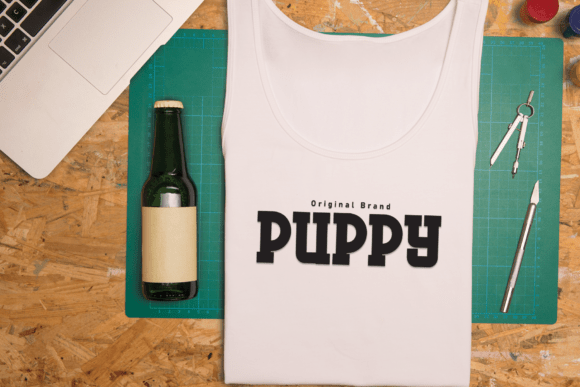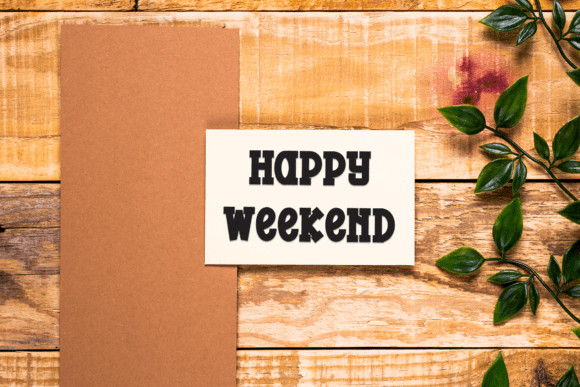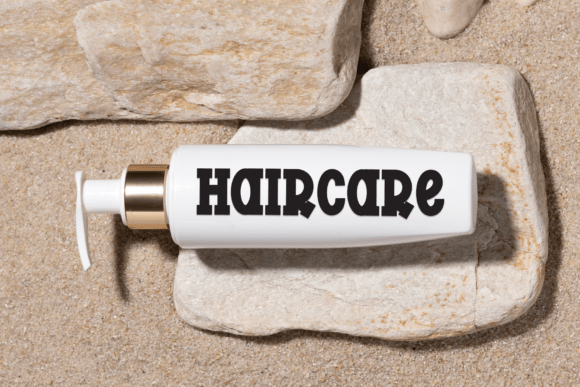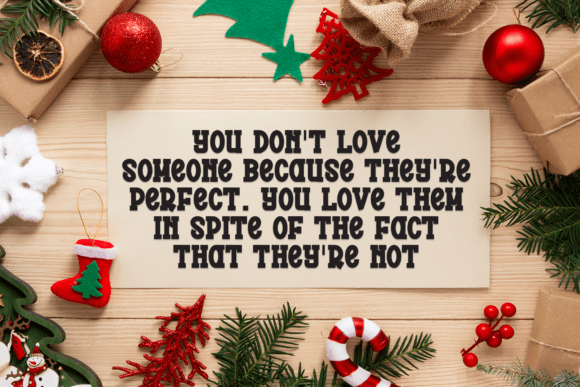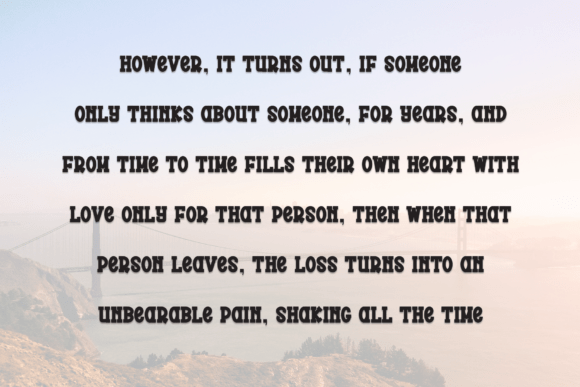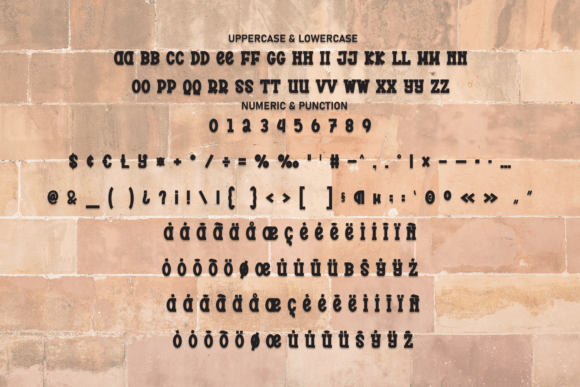
Introducing Block Vintage Font: A Modern Handwritten Display Font with a Raw, Hand-Sculpted Personality
In the world of typography, fonts play a crucial role in conveying the tone and personality of a brand or design. For designers and crafters looking for a unique and impactful font to make their projects stand out, Block Vintage Font is an excellent choice. This modern handwritten font is designed to embody a raw, “hand-sculpted” personality, making it perfect for high-impact editorial titles, creative logo design, urban lifestyle branding, and modern social media quotes.
What Makes Block Vintage Font Stand Out?
Block Vintage Font is a massive and high-impact display font that features heavy, blocky letterforms characterized by a stable vertical axis and a playful, slightly bouncy baseline. Its defining creative hallmark is the use of high-contrast character silhouette, which provides a customized, artisanal feel that remains powerful and grounded. This unique combination of characteristics makes Block Vintage Font a standout choice for designers looking to add a touch of personality to their projects.
Key Features of Block Vintage Font
- Modern Handwritten Font: Block Vintage Font is labeled as a modern handwritten font, making it perfect for designers looking for a font that is both contemporary and unique.
- Heavy, Blocky Letterforms: The font features heavy, blocky letterforms that are characterized by a stable vertical axis and a playful, slightly bouncy baseline.
- High-Contrast Character Silhouette: The use of high-contrast character silhouette provides a customized, artisanal feel that remains powerful and grounded.
- Perfect for High-Impact Editorial Titles: Block Vintage Font is perfect for high-impact editorial titles, creative logo design, urban lifestyle branding, and modern social media quotes.
Use Cases for Block Vintage Font
Block Vintage Font is a versatile font that can be used in a variety of design projects. Here are some use cases where Block Vintage Font shines:
- Editorial Titles: Use Block Vintage Font to create high-impact editorial titles that grab attention and make a statement.
- Logo Design: The font’s unique and playful personality makes it perfect for creative logo design.
- Urban Lifestyle Branding: Block Vintage Font is perfect for urban lifestyle branding, adding a touch of personality and edge to your brand.
- Social Media Quotes: Use Block Vintage Font to create modern social media quotes that stand out from the crowd.
Why Choose Block Vintage Font?
With so many fonts available, why choose Block Vintage Font? Here are a few reasons why designers and crafters love this font:
- Unique Personality: Block Vintage Font has a unique and playful personality that sets it apart from other fonts.
- High-Impact: The font is designed to make a statement, making it perfect for high-impact editorial titles and creative logo design.
- Versatile: Block Vintage Font is a versatile font that can be used in a variety of design projects.
In conclusion, Block Vintage Font is a modern handwritten display font that embodies a raw, “hand-sculpted” personality. With its heavy, blocky letterforms, high-contrast character silhouette, and playful, slightly bouncy baseline, this font is perfect for designers and crafters looking to add a touch of personality to their projects. Whether you’re creating high-impact editorial titles, creative logo design, urban lifestyle branding, or modern social media quotes, Block Vintage Font is an excellent choice.